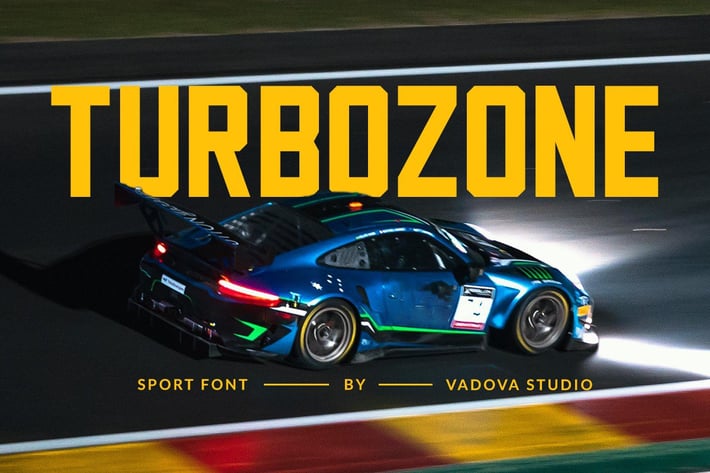
Turbozone Condensed Font
Turbozone is a dynamic and futuristic sans serif display font inspired by the velocity of motorsport and the intensity of athletic energy. With high-octane angles and extended letterforms, Turbozone is engineered for bold headlines, high-impact branding, and anything that needs to move fast—visually and emotionally.
Turbozone Suitable forbold, high-energy display font designed for speed, impact, and attitude. Perfect for sports branding, racing designs, esports, and streetwear, it brings a dynamic edge to any project. Its strong geometric style makes it ideal for headlines, posters, and apparel